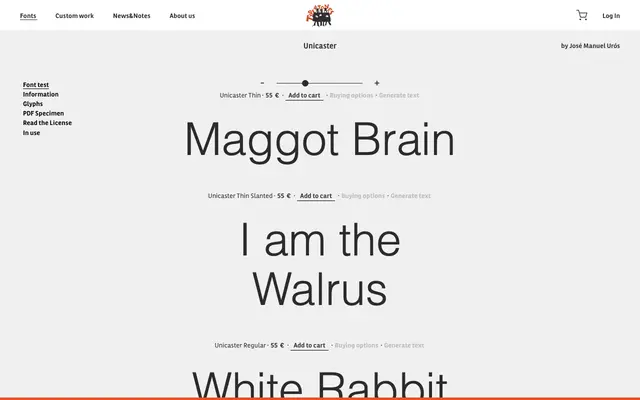
Unicaster
A three-weight grotesque sans by José Manuel Urós, each weight paired with a slanted companion for a compact six-style family.
Unicaster offers Thin, Regular and Bold weights, each with a slanted variant, giving a small but coherent six-style family suited to editorial and display work. The naming references broadcast or signage traditions, and the straightforward weight range keeps it practical rather than ornate. Designed by José Manuel Urós under the Type-ø-tones banner.
The even stroke weight, upright roman with slanted variants, and the naming conventions suggest a grotesque or geometric sans-serif lineage typical of mid-century broadcast and signage typography.